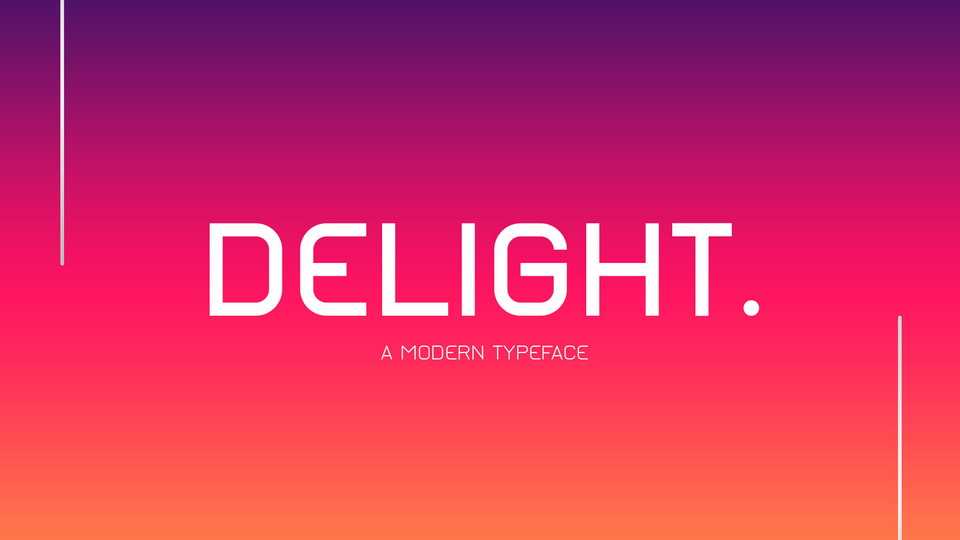
Download Delight font, a clean and geometric sans serif typeface with distinctive look and minimalist aesthetic. Delight font is ideal for tech, transportation, electronic music, posters and other display use.